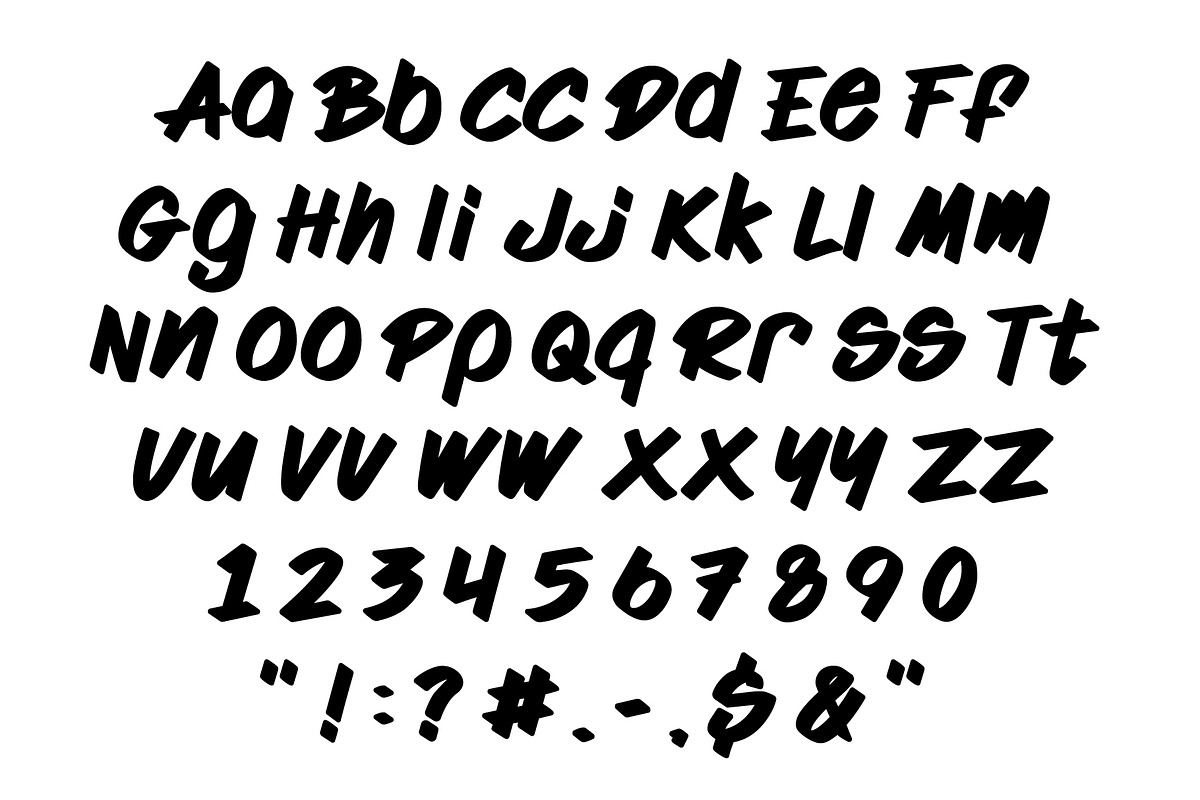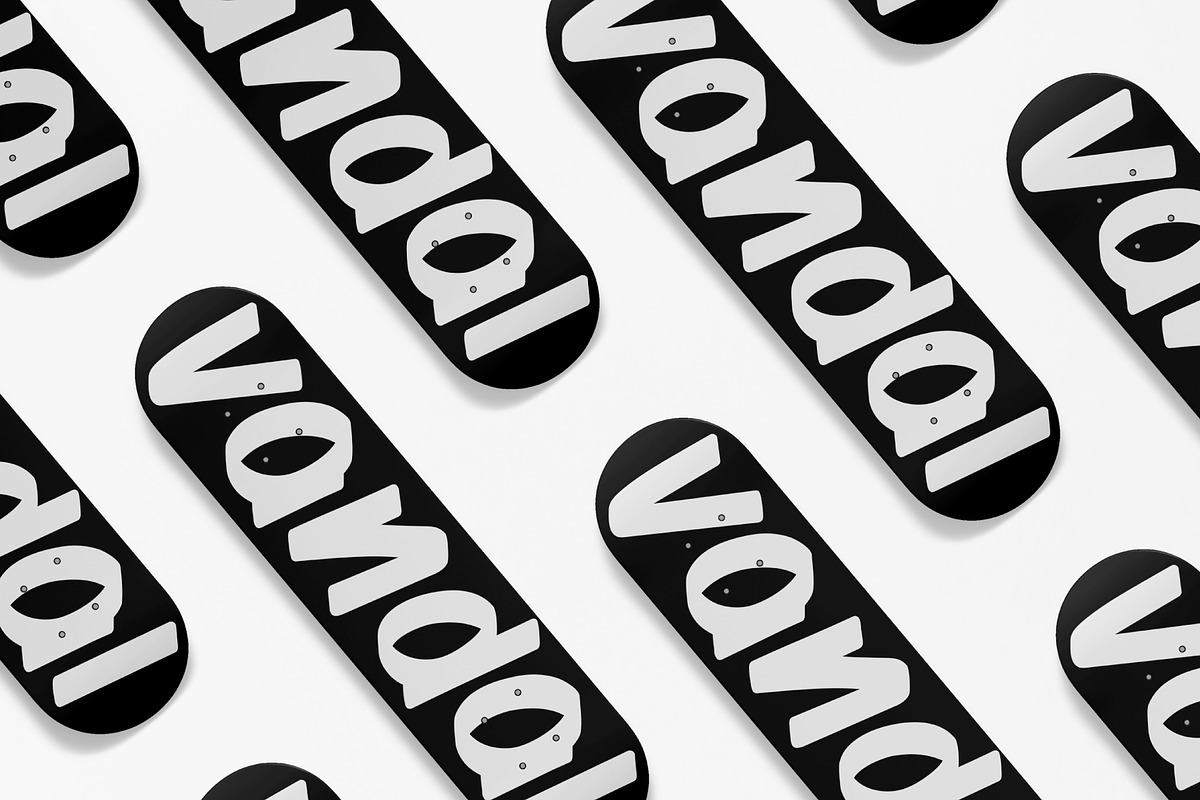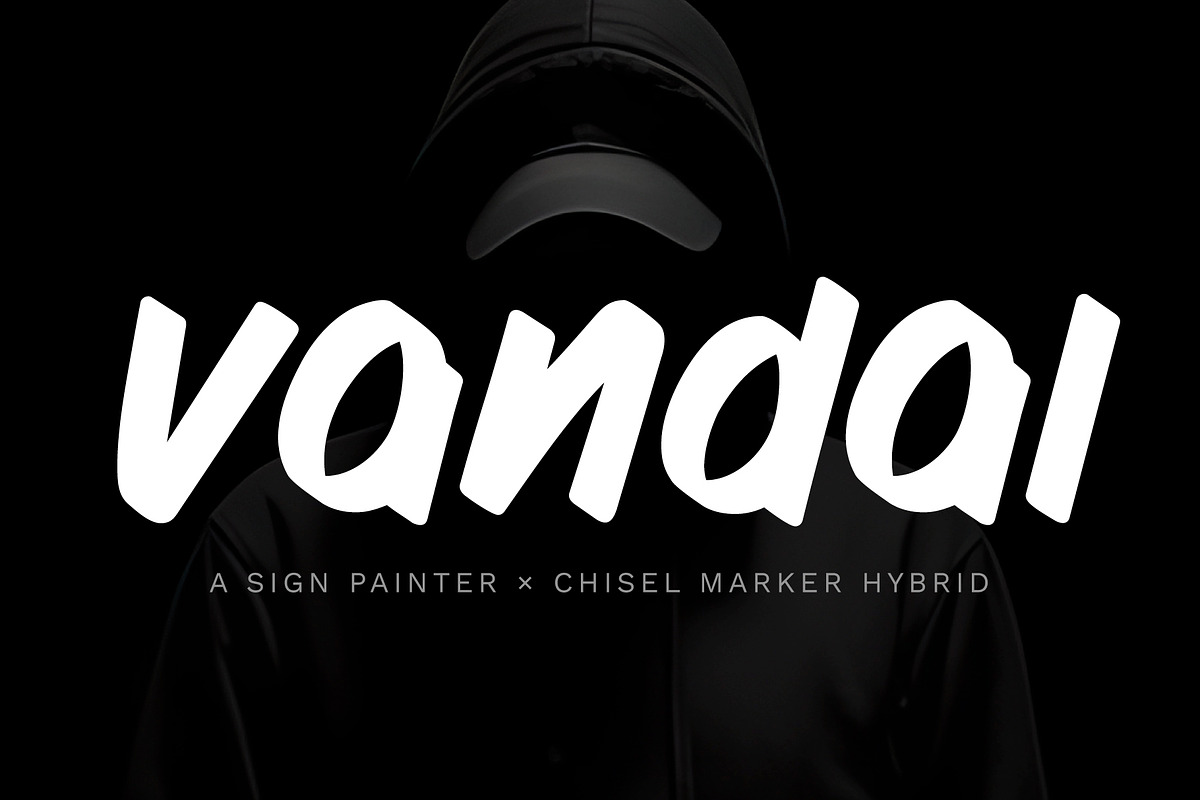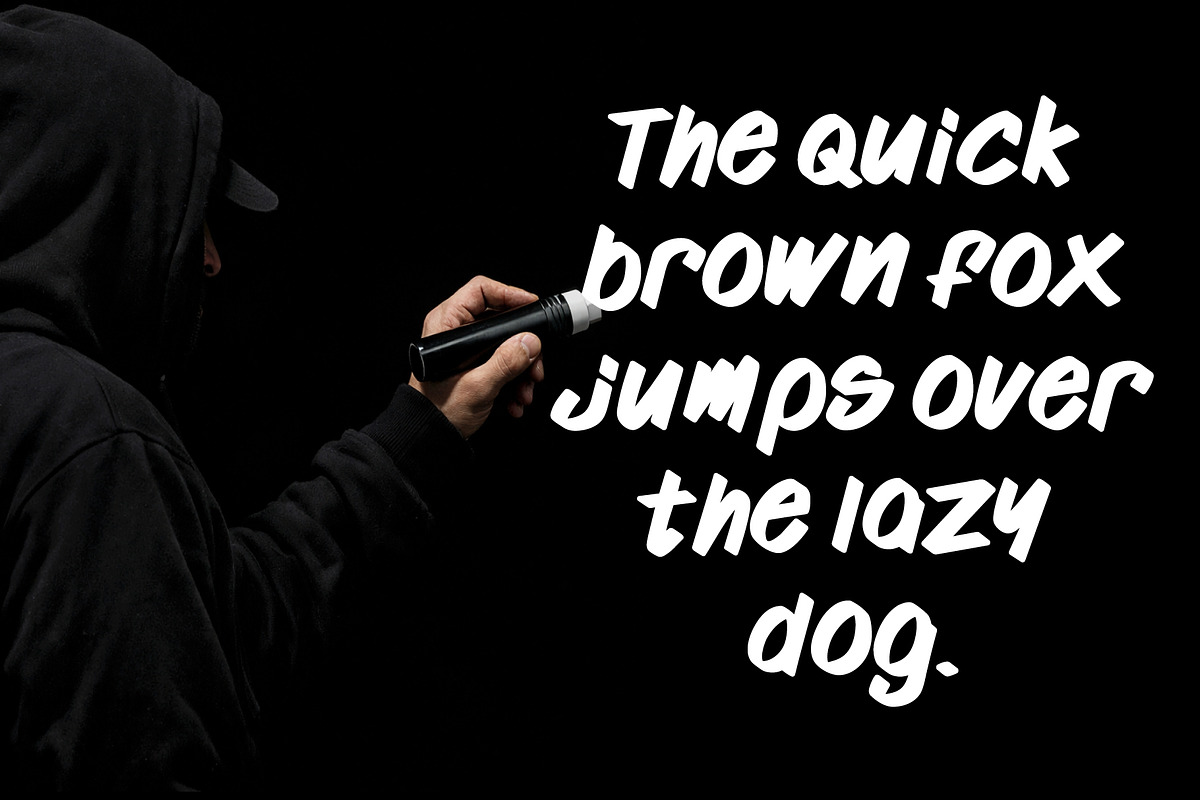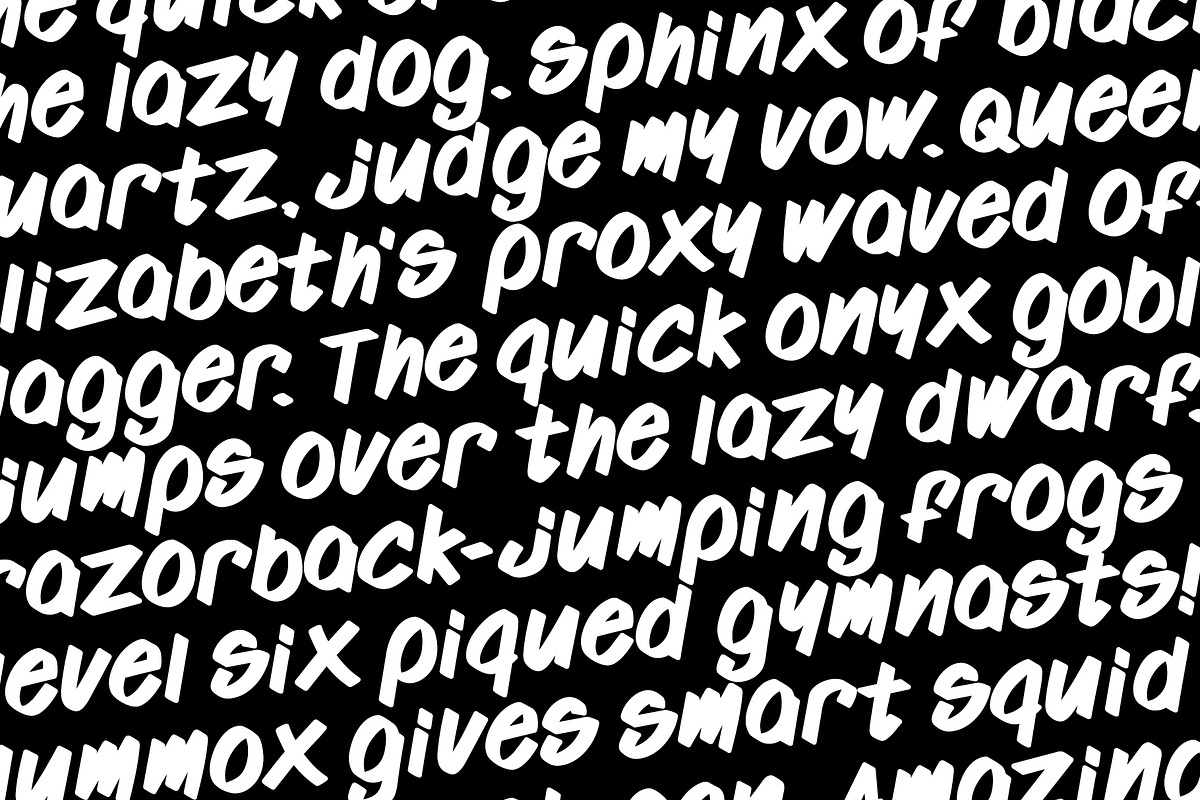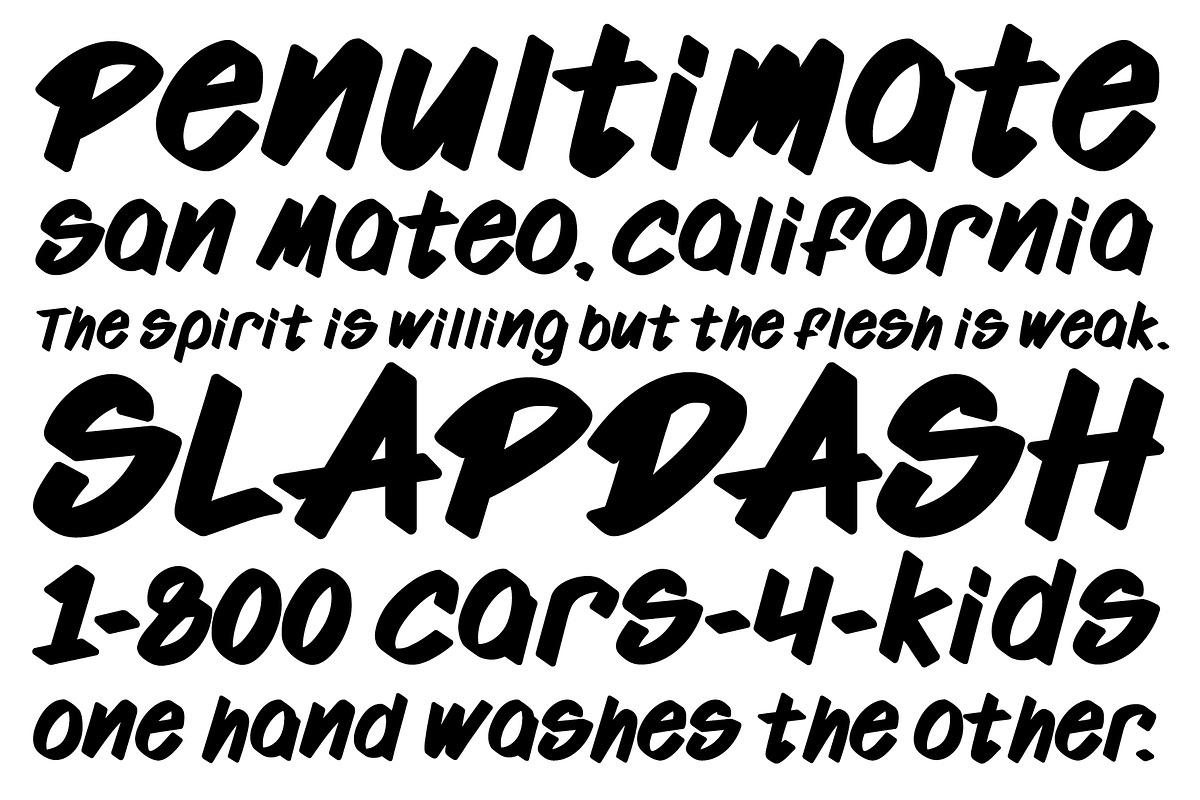
Vandal
Vandal is a bold display typeface built at the intersection of traditional sign painting and street side marker culture.
Inspired by hand painted storefront lettering and fat chisel tip Posca tags, Vandal blends controlled stroke discipline with raw, marker driven energy. The result is a font that feels hand done, physical, and slightly reckless, without losing structure or usability.
Caps and lowercase share a similar height, giving you maximum impact whether you set it in all caps, all lowercase, or mixed case. It holds weight in headlines, logos, merch, skate graphics, posters, packaging, and streetwear branding.
The edges are intentionally a little rough. Not distressed. Not grunge. Just human. Every letter carries subtle variation to keep compositions alive and avoid that overly polished digital look.
Skate and streetwear brands
Poster design
Album art
Bold logos
Social graphics
Packaging with attitude
Includes uppercase, lowercase, numbers, and lite punctuation.